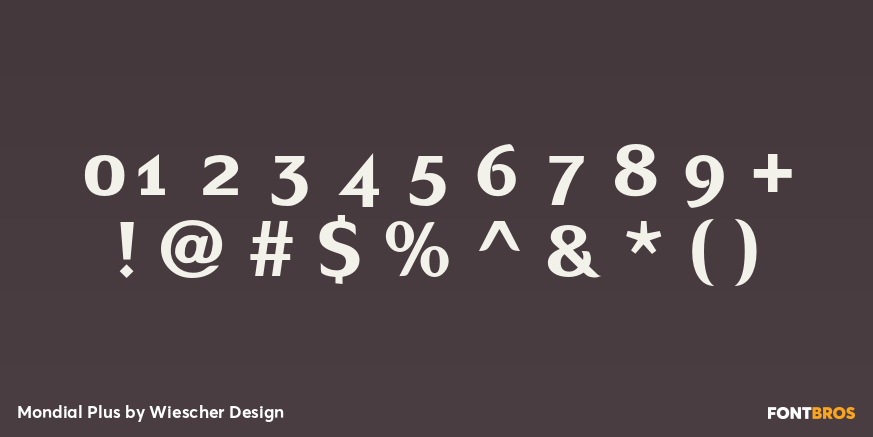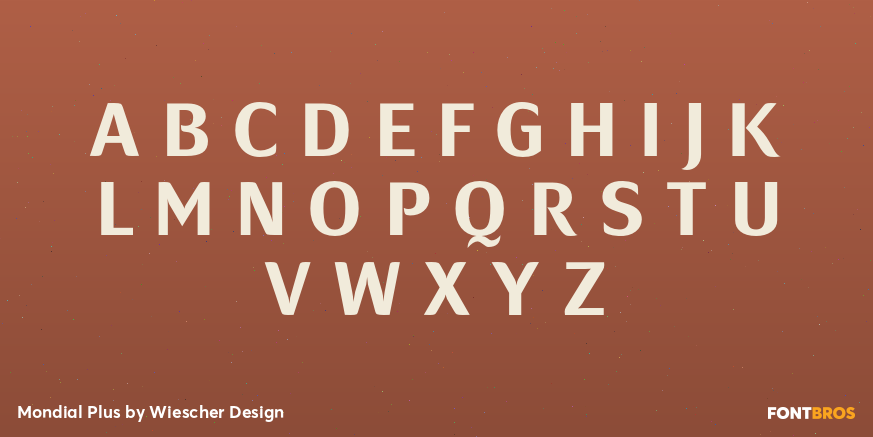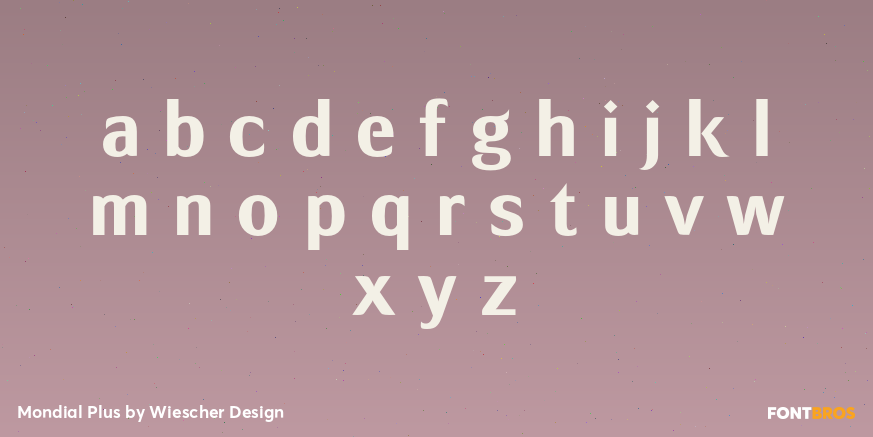
Mondial Plus
Font Family by Wiescher Design
MondialPlus is, as the name implies, a font meant for the whole world.
MondialPlus is the newer and better version of Mondial. MondialPlus is designed to work in small sizes for bodytext. Only in bigger sizes does the font show its hidden character, it has a curved design to it, that makes it very special. Mondial is a very elegant and versatile font in the tradition of french sans typefaces.